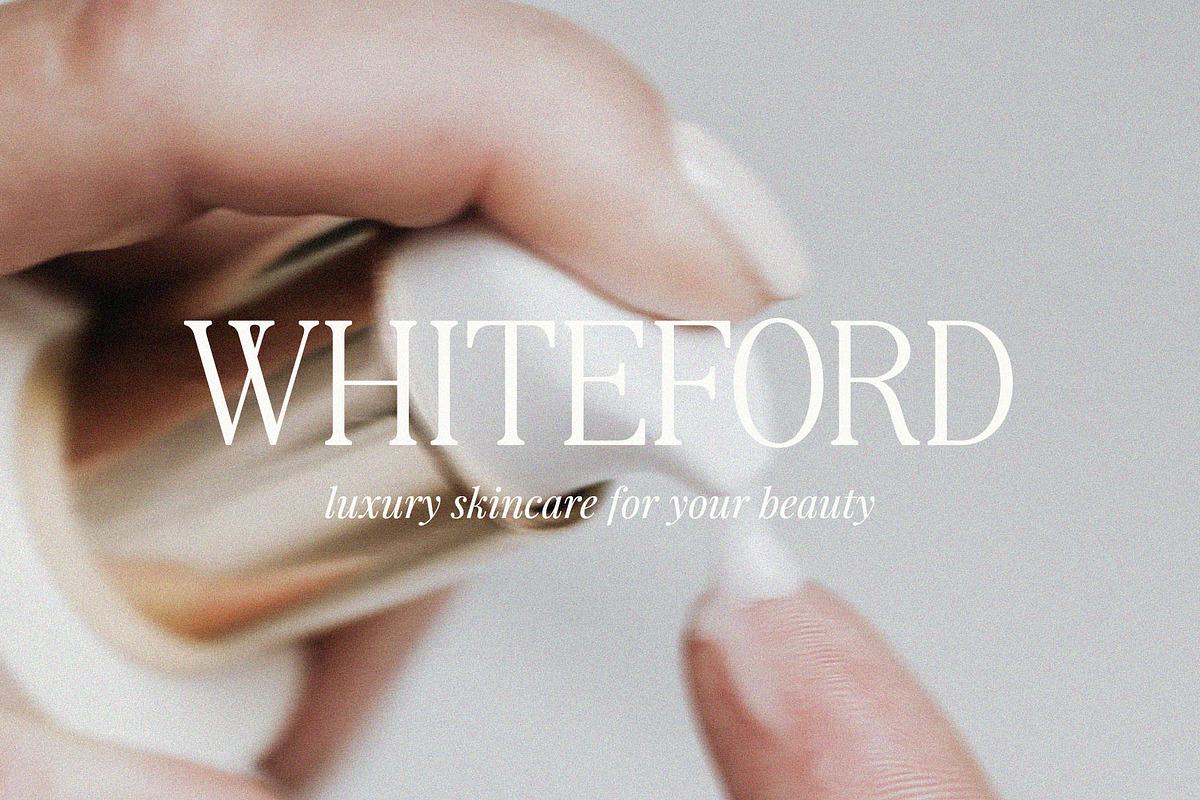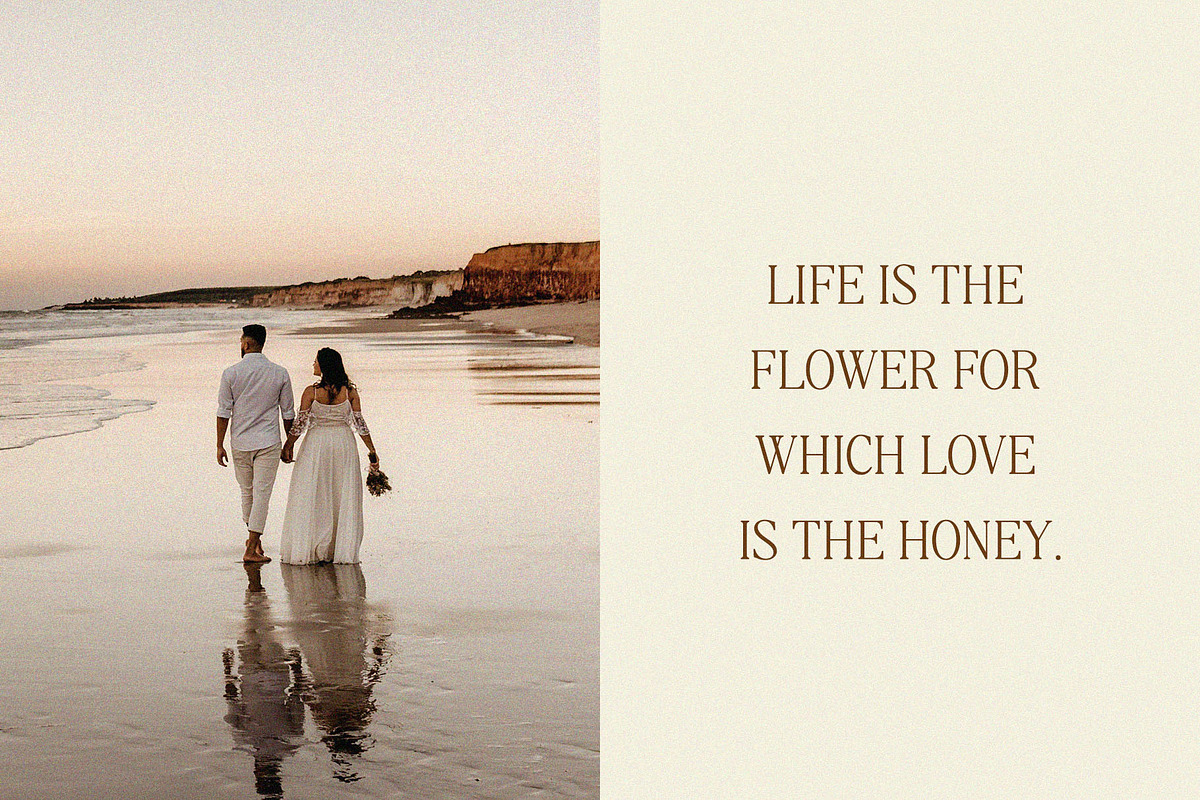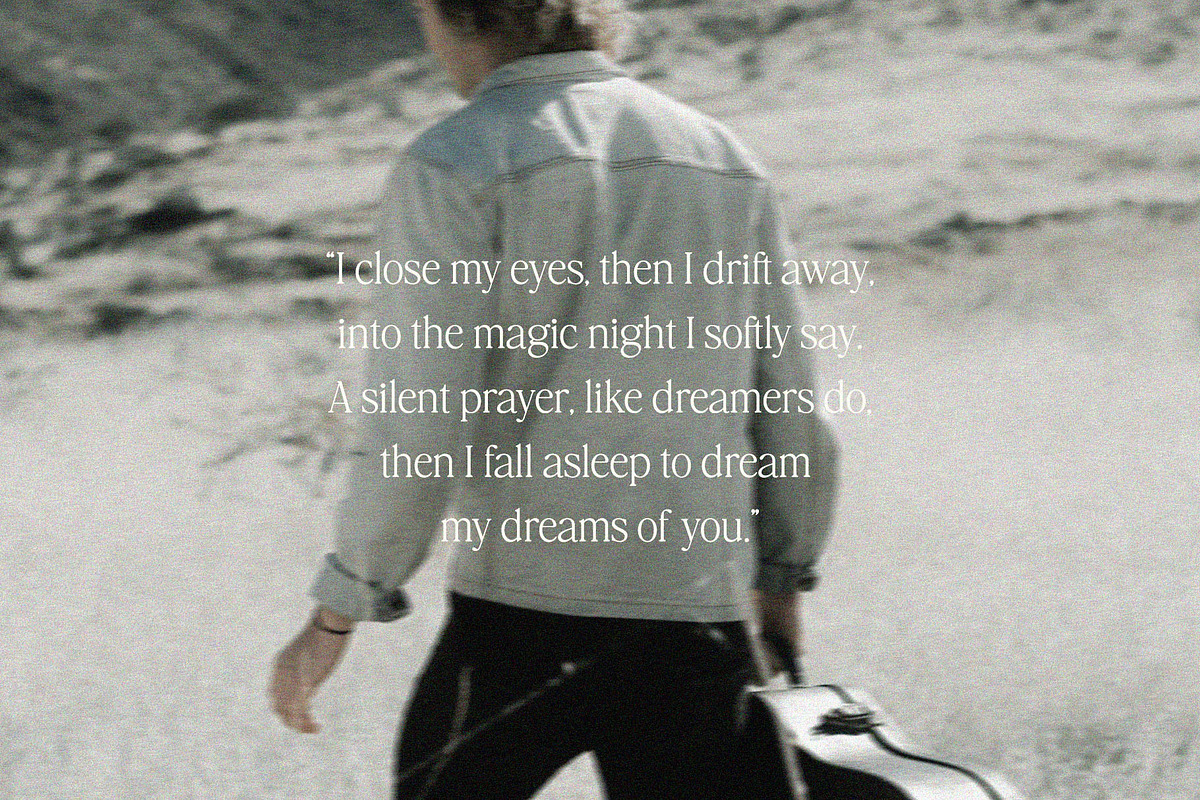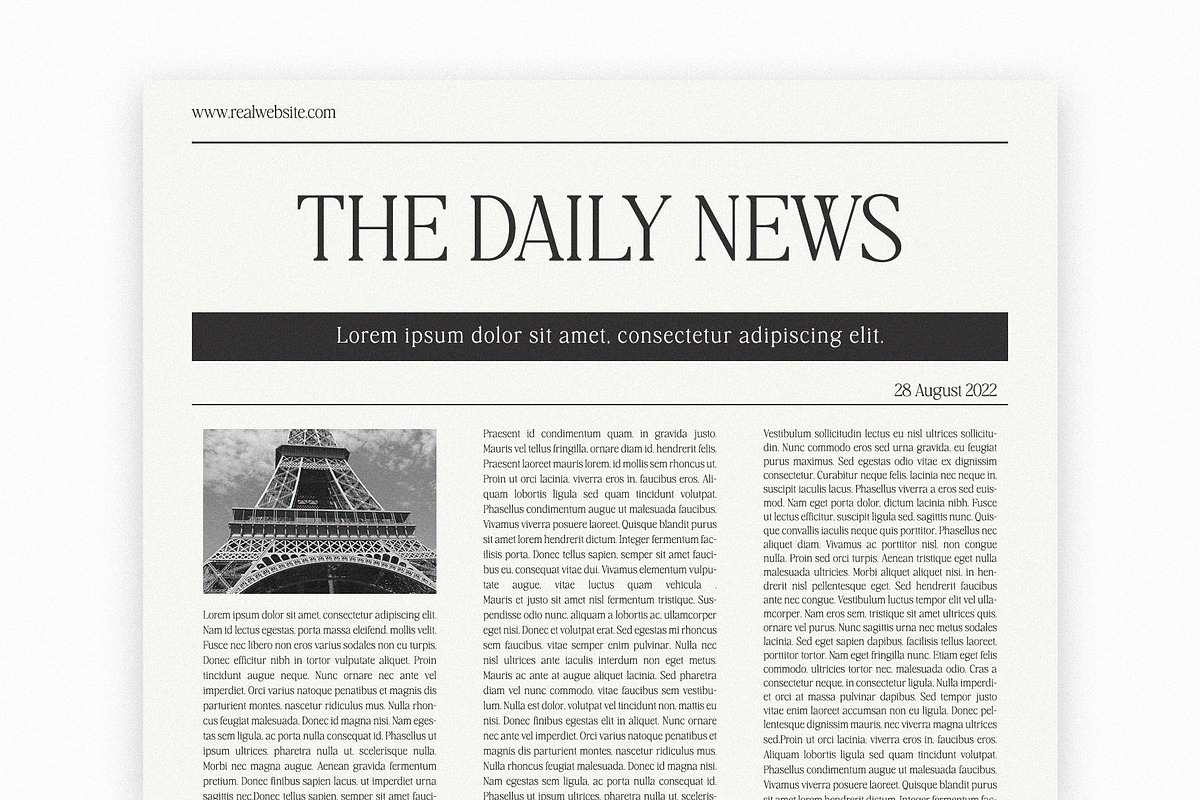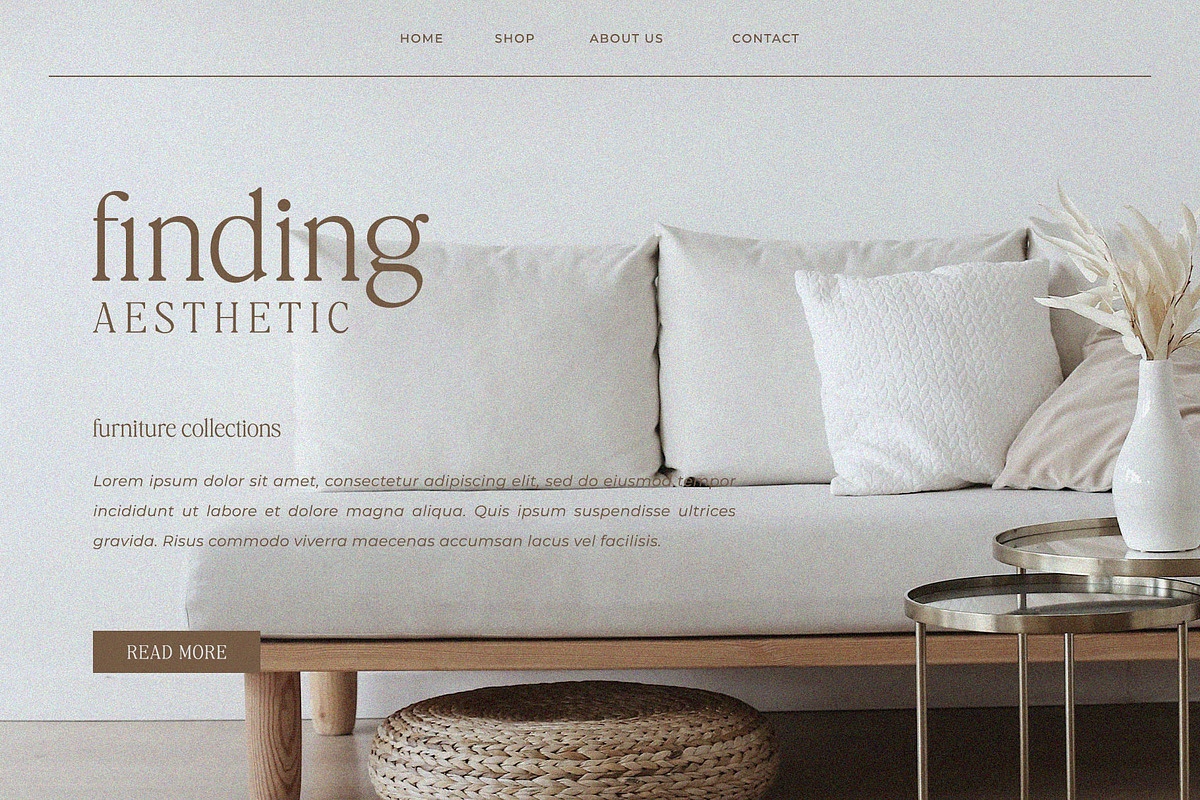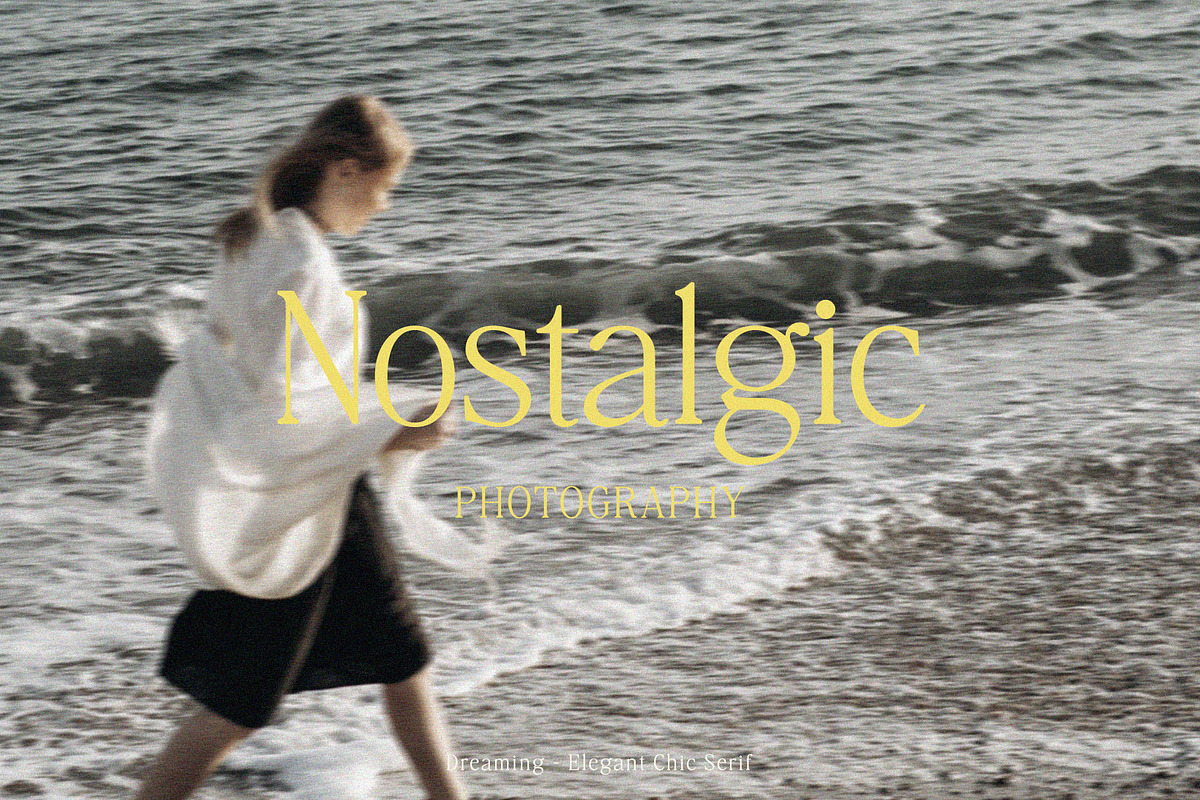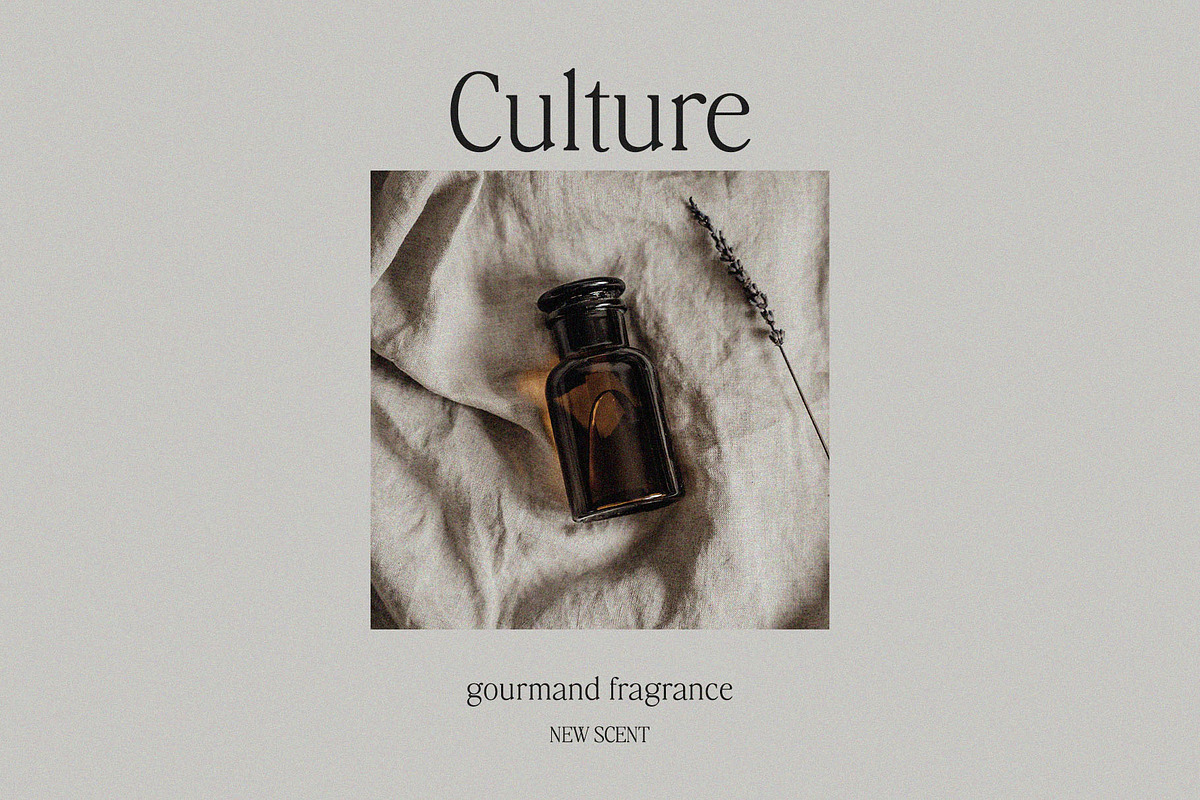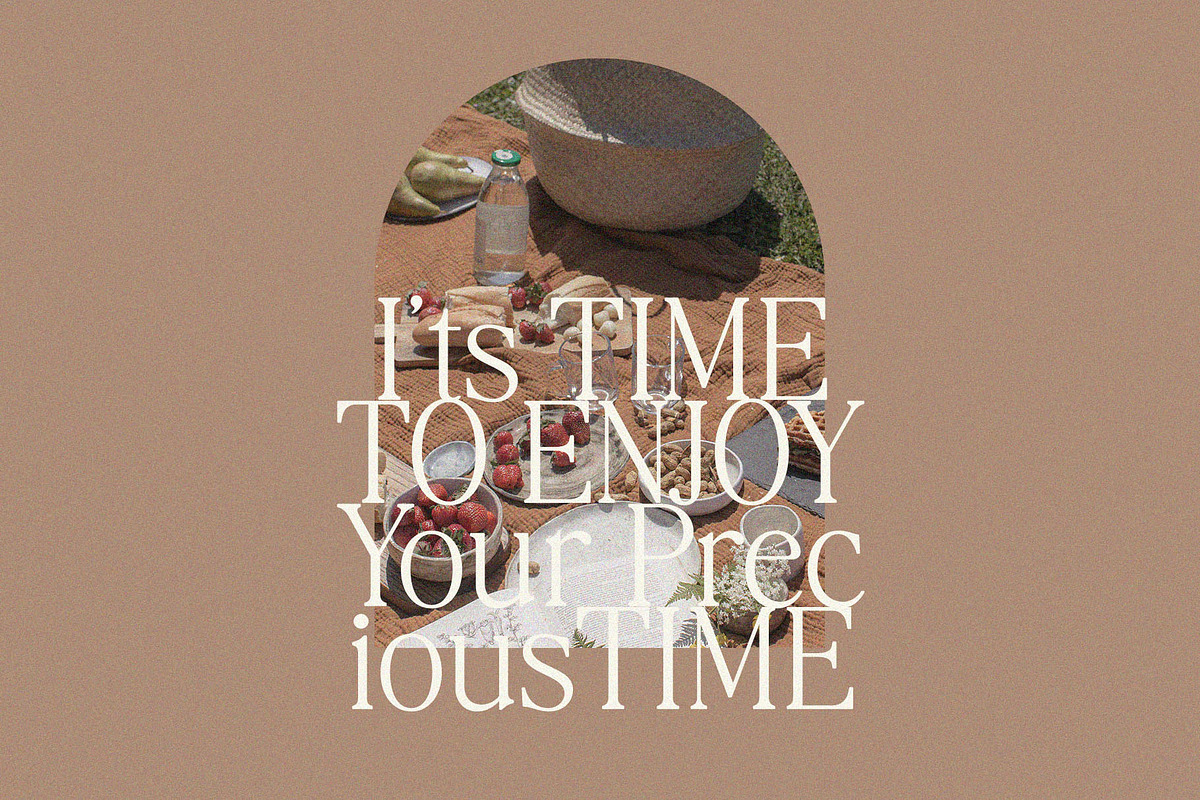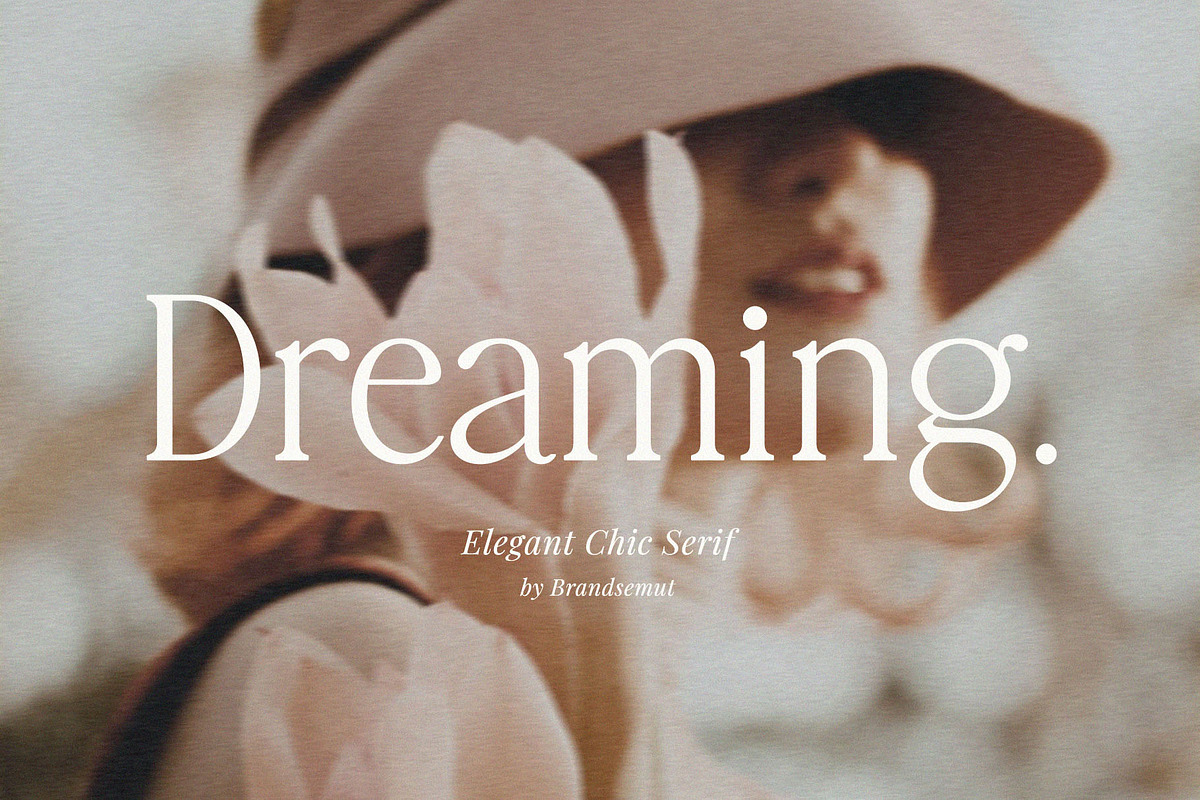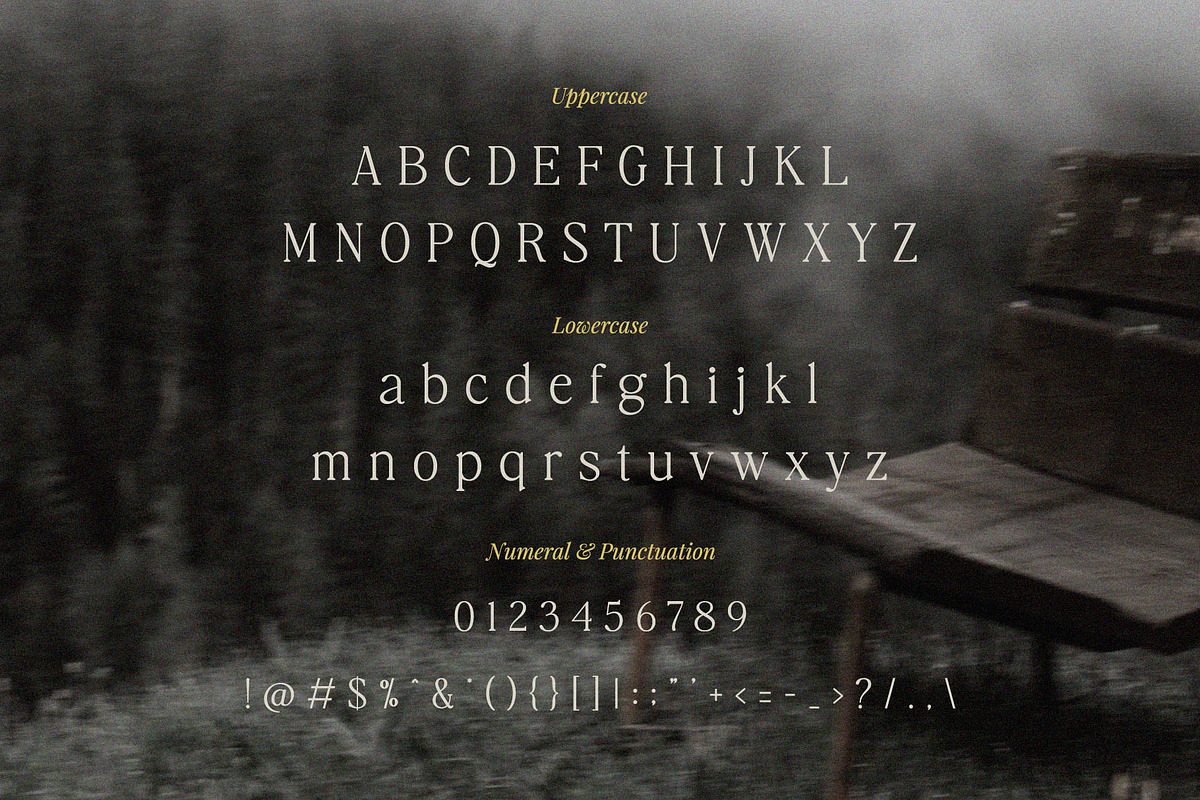
Dreaming – Elegant Chic Serif
Introducing Dreaming Elegant Chic Serif. Dreaming is a elegant and chic typeface, best used as a display for headings, logos, branding, magazines, product packaging and invitations. Dreaming come with clean lines and smooth curves give any project an extra touch of class.